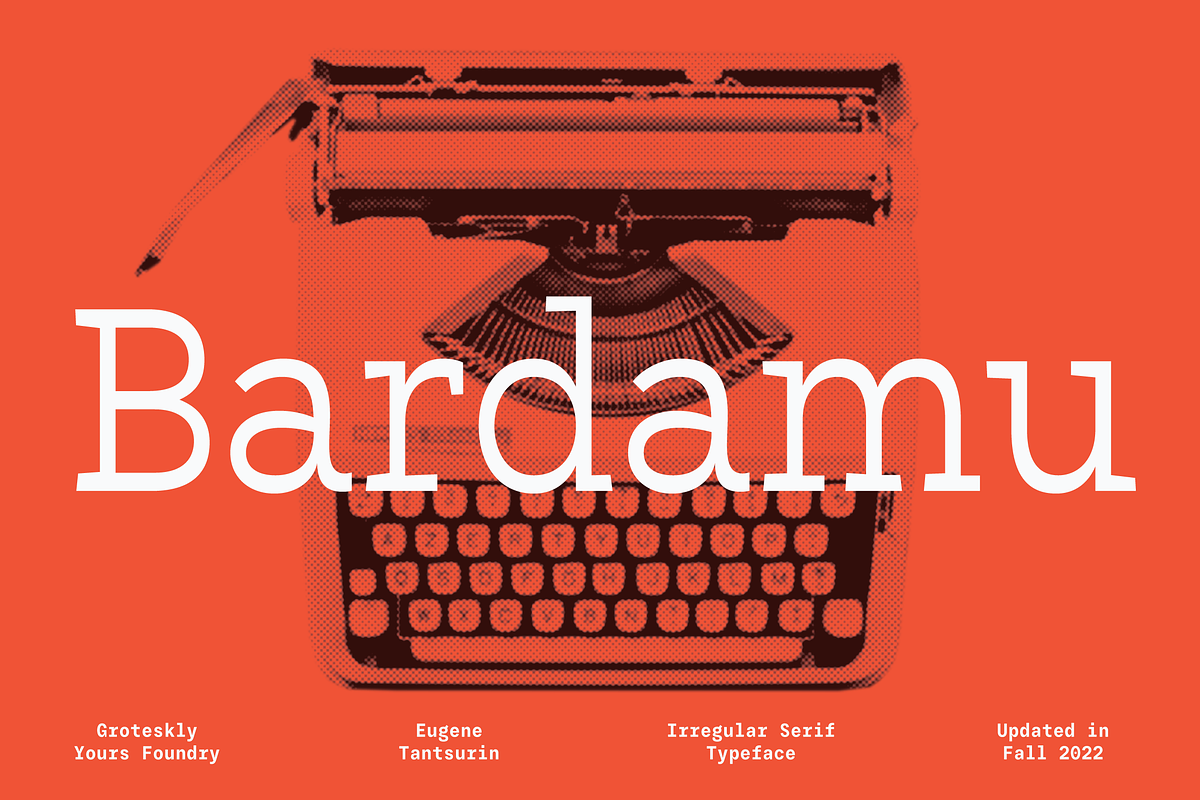
Bardamu – Happy & Weird Slab Serif Font Free Download is a quirky and playful typeface designed to bring a fun and unique personality to your designs. With its bold slab serifs and distinctive character, this font is perfect for creating attention-grabbing logos, posters, branding, and creative projects. Whether you're working on a whimsical campaign, a funky event, or designing for a fun brand, Bardamu – Happy & Weird Slab Serif Font Free Download adds a touch of individuality and charm to any design. Experiment with its lively style in personal projects before purchasing a commercial license and give your work a fresh and bold edge with this one-of-a-kind slab serif font.